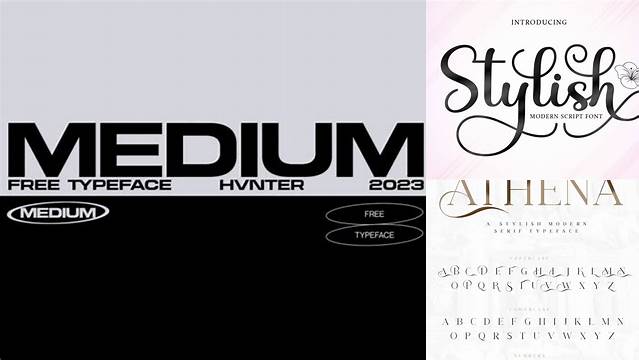
Medium Font Free Download: Your Typography Guide
Looking for a medium font free download to spice up your design projects? You're in the right place! In this comprehensive guide, we'll delve into the world of medium fonts, explore where to find them, and how to use them effectively. Whether you're a seasoned designer or just starting out, this article will provide you with the knowledge and resources you need to elevate your typography game. Let's dive in, shall we?
What is a Medium Font?
First things first, what exactly is a medium font? Well, unlike some other font classifications, "medium" doesn't refer to a specific font style or family. Instead, it typically describes the weight or thickness of the typeface. Think of it like the Goldilocks of fonts – not too thin, not too bold, but just right. A medium font strikes a balance between readability and visual impact, making it a versatile choice for a wide range of applications. It's perfect for body text, headlines, and everything in between. It's like the workhorse of the font world, reliable and always ready to get the job done. And let's be real, who doesn't love a font that's easy on the eyes?
Medium fonts often exhibit a clean and modern aesthetic, making them well-suited for contemporary design projects. They're also incredibly readable, even at smaller sizes, which is crucial for user experience. This makes them a popular choice for websites, documents, and presentations where clarity is key. In terms of technical specifications, the exact weight definition of a medium font can vary slightly depending on the font family and the designer's preferences. Some fonts might label it as "regular", while others may explicitly use the term "medium." However, regardless of the specific nomenclature, the core characteristic remains the same: a balance between thin and bold, readability and visual appeal. Understanding the subtle nuances of font weights is essential for any designer, as it can significantly impact the overall tone and message conveyed by your design. It's like choosing the perfect spice for a dish – it can make or break the whole experience. Consider factors such as the context of your design, the intended audience, and the overall aesthetic when selecting a medium font. Don't be afraid to experiment with different weights to find the perfect fit for your project. And remember, the best medium font is one that meets your specific needs and helps you effectively communicate your message. Finding the right medium font can sometimes feel like searching for a needle in a haystack, but with a little bit of knowledge and a lot of patience, you'll find the perfect typeface to bring your vision to life.
Tips for Using Medium Fonts Effectively
Okay, you've got your medium font free download and you're ready to get started. But how do you use it effectively? Here are some tips to help you make the most of your chosen typeface:
- Consider Readability: The primary goal of a medium font is to be readable. Make sure the font size and spacing are appropriate for the intended use. Avoid using medium fonts in overly small sizes, as they can become difficult to read. Consider the contrast between the font color and the background color, and make sure it's sufficient for comfortable viewing.
- Experiment with Weight and Size: Don't be afraid to experiment with different font weights and sizes to find the perfect balance for your design. A slightly bolder weight might work well for headlines, while a lighter weight could be suitable for body text. Play around with different sizes until you find one that's both visually appealing and easy to read.
- Pair with Other Fonts: A medium font can be a great complement to other fonts in your design. Consider pairing it with a contrasting font for headlines or subheadings. Just make sure that the fonts complement each other and don't compete for attention. Like any good outfit, fonts should work together to create a cohesive and stylish look.
- Use it in Context: Think about the overall tone and message of your design. A medium font can be a versatile choice for a wide range of applications, but it's not always the best fit. Consider your target audience and the type of content you're creating. For instance, a medium font might be a great choice for a website with a clean, modern aesthetic, but it might not be the best fit for a vintage-themed project.
As we wrap up, hopefully you have a clearer understanding of medium fonts, their benefits, and where to find them. With the right medium font, your designs will be more readable, engaging, and visually appealing. So go forth and explore the world of typography – your next creative project awaits!